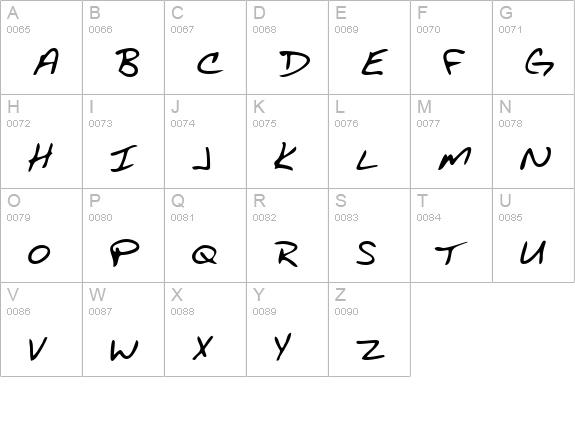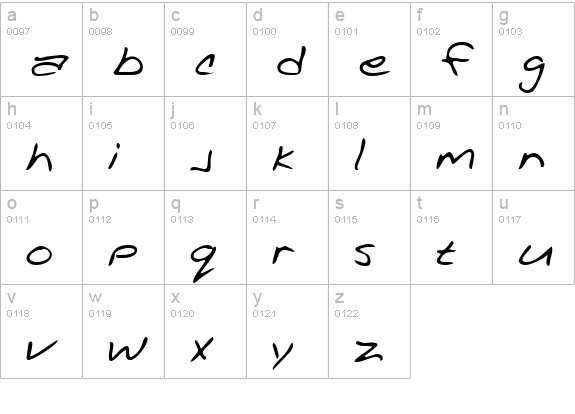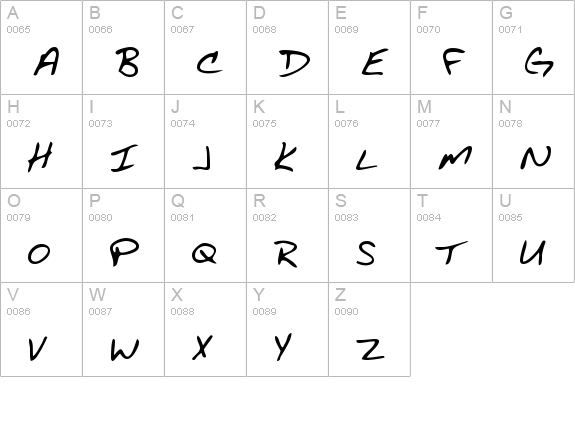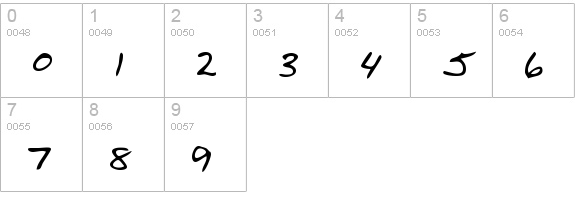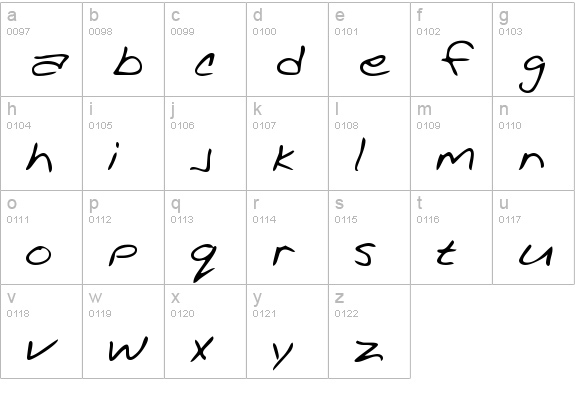
AcaciasHand Regular is the standard, neutral variant in the AcaciasHand typeface family \xE2\x80\x94 well suited to general body text, paragraphs, and standard typographic work.
AcaciasHand Regular font is a charming and elegant typeface that exudes a sense of warmth and friendliness. Its flowing curves and delicate strokes give it a handmade, artisanal feel that is perfect for adding a personal touch to your designs. Whether you are creating invitations, greeting cards, or branding materials, AcaciasHand Regular will bring a touch of sophistication and whimsy to your projects. Best of all, AcaciasHand Regular font is available for free download at FontsMarket.com. This means you can easily add this beautiful font to your collection without breaking the bank. Don't miss out on the opportunity to enhance your designs with the unique and stylish AcaciasHand Regular font – download it today and let your creativity shine!